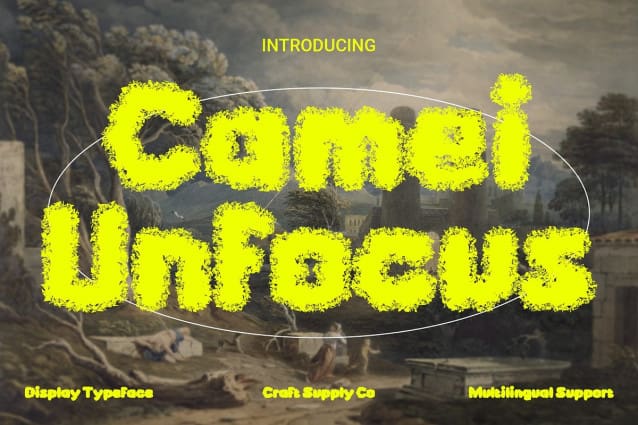
Camei Unfocus Font
Camei Unfocus Font: Embracing Experimental Display Typography. Inspired by Clouds Camei Unfocus draws inspiration from clouds, embodying a whimsical bubble-like shape. Its unfocused effect adds an ethereal quality, reminiscent of the ever-changing formations in the sky.
Experimental Display Designed for contemporary and experimental displays, This font pushes the boundaries of traditional typography. Its blurred contours challenge conventional design norms, offering a fresh and unconventional aesthetic.
Versatile Application Ideal for a wide range of applications, This font thrives in contemporary design projects seeking a touch of uniqueness. From digital interfaces to event posters, its unconventional shape adds intrigue and captivates the audience.
Modern Interpretation This font redefines modern typography with its innovative approach. Embracing the beauty of imperfection, it invites viewers to explore new dimensions and perspectives in display design.
Bold Experiment This font stands as a bold experiment in display typography, blending the softness of clouds with an unfocused effect to create a captivating visual experience. Embrace its unconventional charm and unleash your creativity in contemporary design endeavors